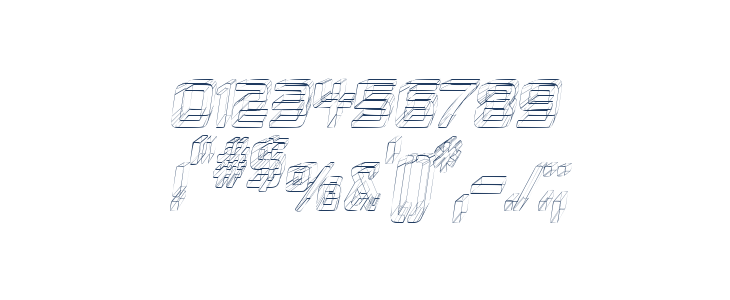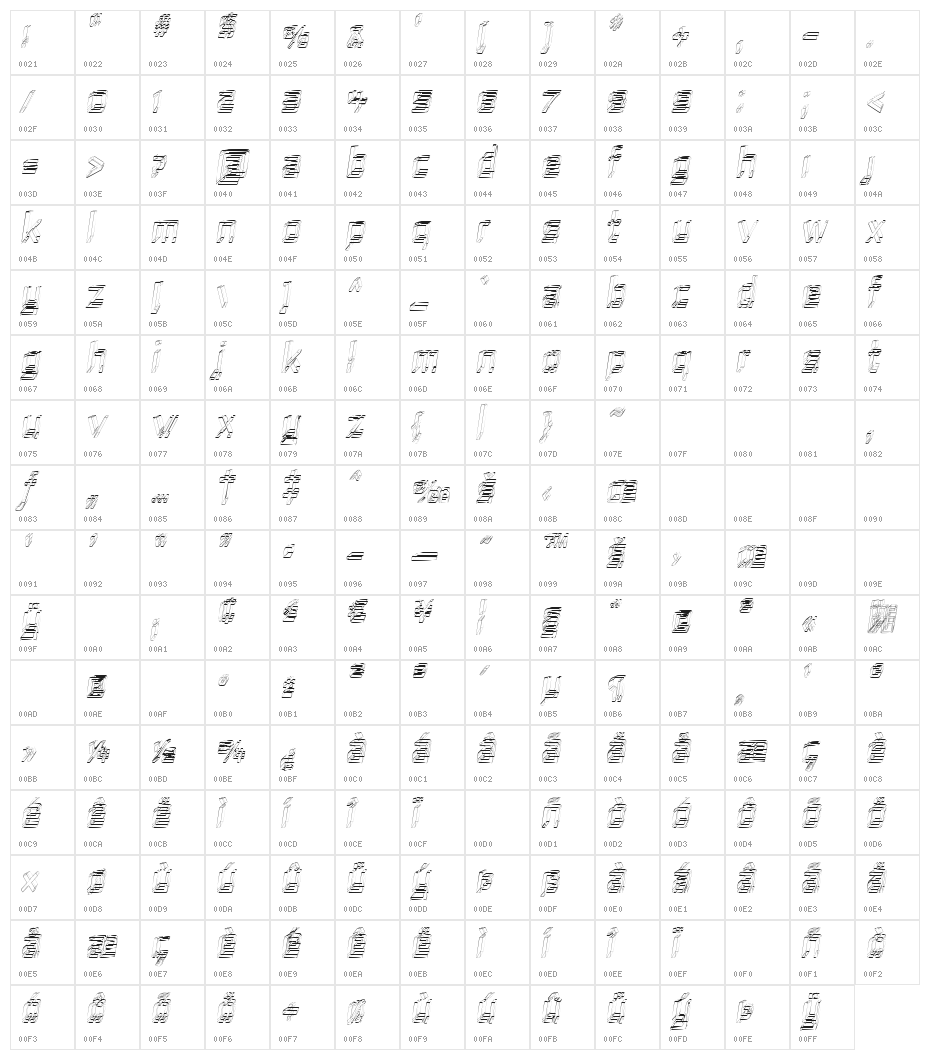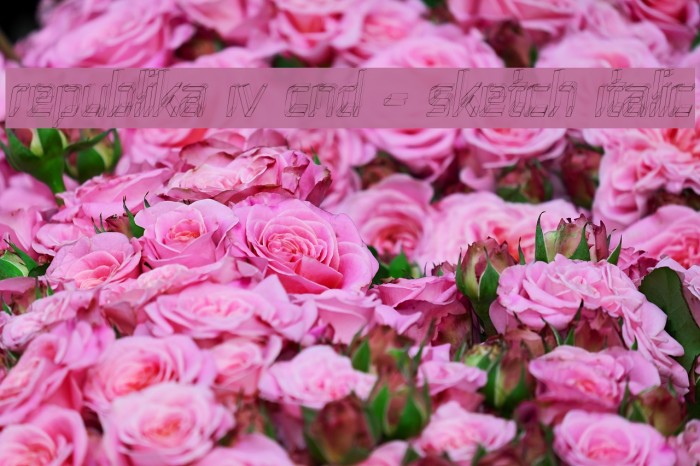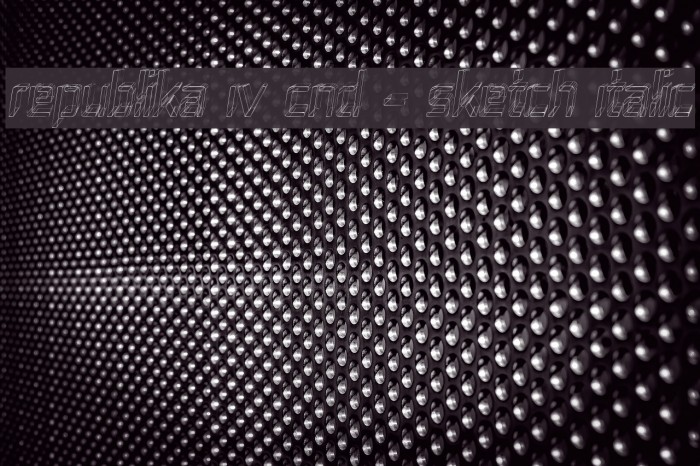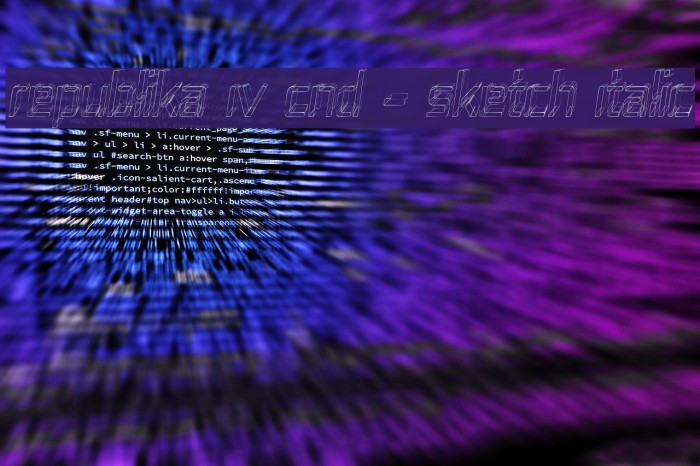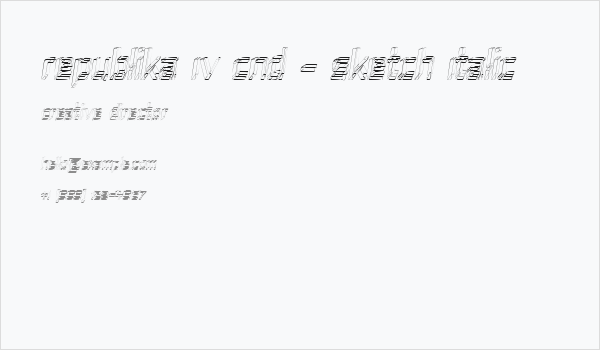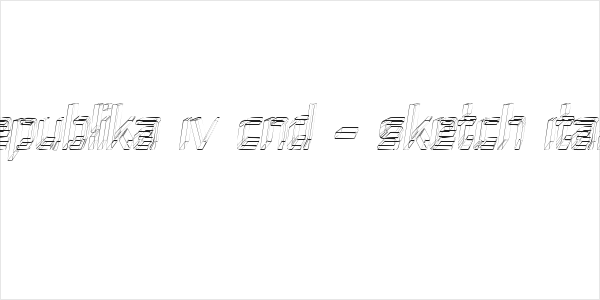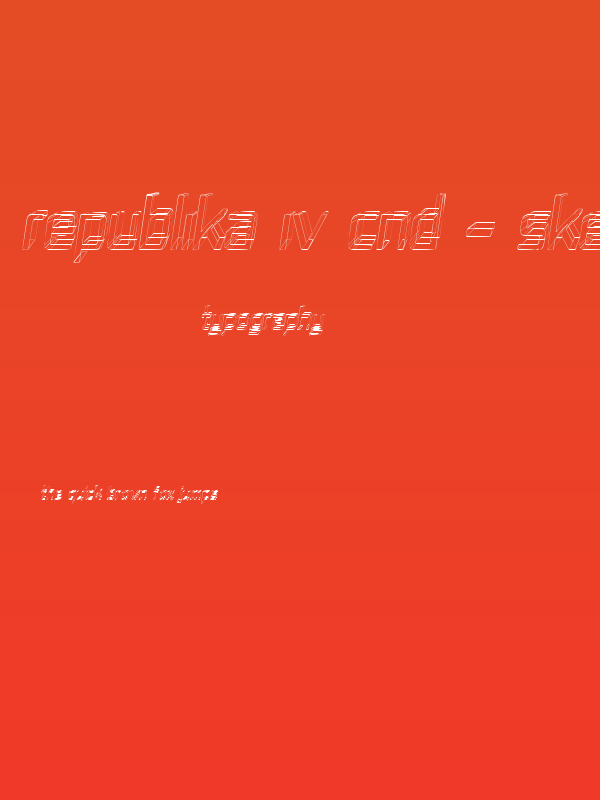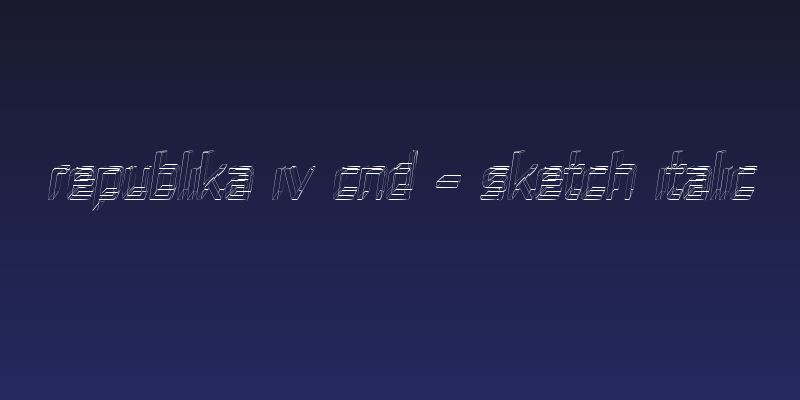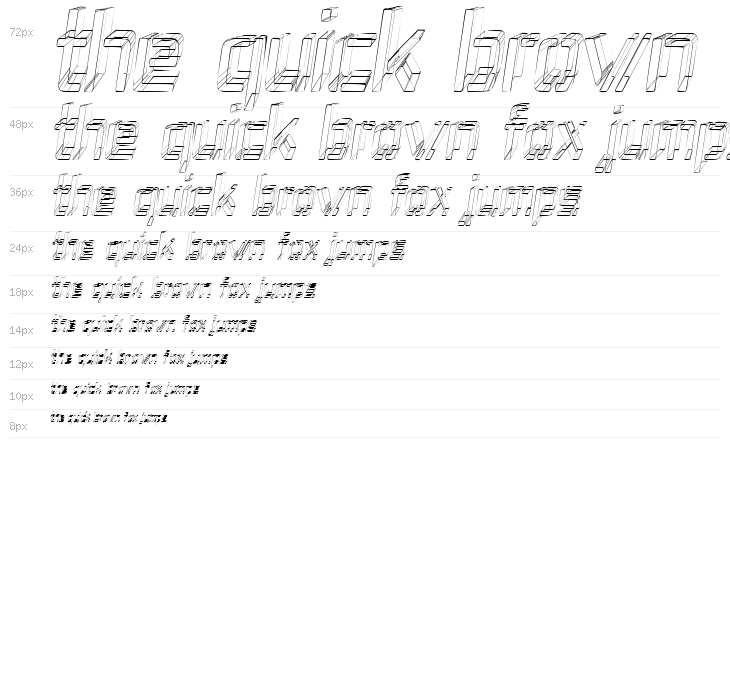
Republika IV Cnd - Sketch Italic Font
Republika IV Cnd - Sketch Italic Description
This font features a unique 3D sketch style that gives it a dynamic and artistic appearance. The characters are outlined with a hand-drawn effect, creating a sense of depth and movement. The italic slant adds to the sense of motion, making it ideal for creative and informal designs. Each letter is meticulously crafted to maintain consistency while offering a playful and engaging look. The font includes a full set of uppercase and lowercase letters, numbers, and a variety of special characters, making it versatile for various design needs.
| Use Case | Headlines, Logos, Artistic designs |
| Proposed Projects | Ideal for creative projects such as posters, album covers, and artistic branding materials. |